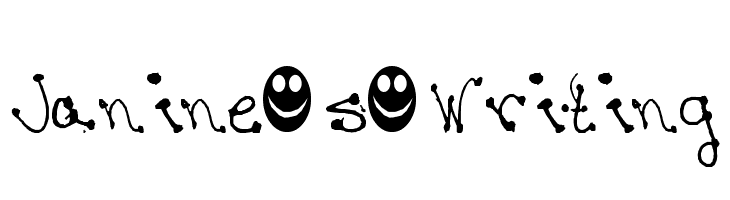
A playful, double-line decorative font with a hollow effect.
A bold, modern stencil-style font with a futuristic and industrial aesthetic.
A bold, rounded font with a playful and friendly style.
A bold, rounded font with playful curves and consistent stroke width.
A bold, high-contrast italic font with a modern and elegant style.
A modern, outline-style font with a playful and airy design.
A playful, modern outline font with geometric and consistent strokes.
A modern, playful font with rounded edges and hollow interiors.
A bold, rounded, and playful font with a modern style.
A bold, playful font with thick, rounded characters and a whimsical style.
A modern, rounded geometric font with a hollow interior and consistent line thickness.
A playful, hand-drawn font with rounded, bubble-like characters and a whimsical style.
A playful, hand-drawn font with bold, rounded outlines and a whimsical style.
A playful, bold font with a 3D effect and rounded letters.
A playful, hand-drawn font with bold outlines and a whimsical, cartoonish style.
A playful, shadowed font with rounded, bold characters and a modern, three-dimensional look.
A playful, bold font with a unique shadow effect and rounded, bubbly characters.
A bold, modern font with characters in rounded black squares, blending calligraphy and graffiti styles.
A modern, elegant sans-serif font with sleek, elongated characters.
A playful, bone-themed decorative font ideal for spooky designs.
An elegant, flowing script font with high contrast and intricate swashes.
A bold, angular font with a dynamic slant, ideal for impactful designs.
A bold, geometric font with a modern, futuristic style.
A bold, italicized font with a modern and dynamic style.
A bold, geometric outline font with a modern, industrial aesthetic.